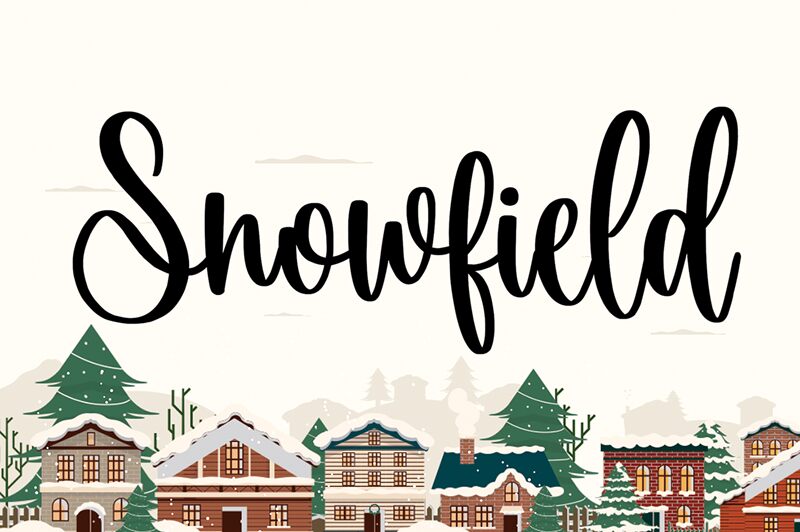
Snowfield font by Mozatype is a free script font which focuses on smooth, flowing, rounded letters to create impeccable casual designs. The contemporary and elegant nature of this typeface is meant to be inviting to a reading audience and friendly to the reader’s eyes. Each letter almost reads like a warm handwriting style that makes the font suitable for projects themed around comfort and coziness.
Use this font on product packaging, brand identities, postcards, wedding stationery, invitations, book covers and in other projects. The versatility of Snowfield also allows it to be used on web design, mobile applications, and social media accounts as well.